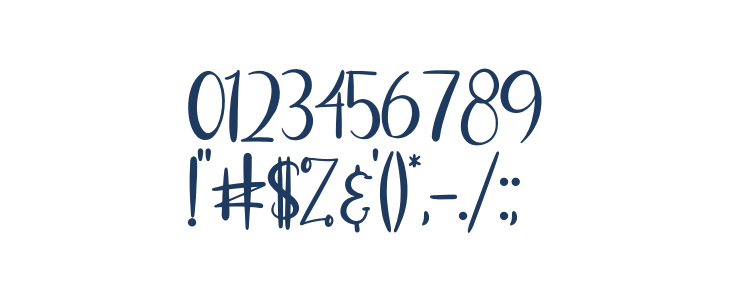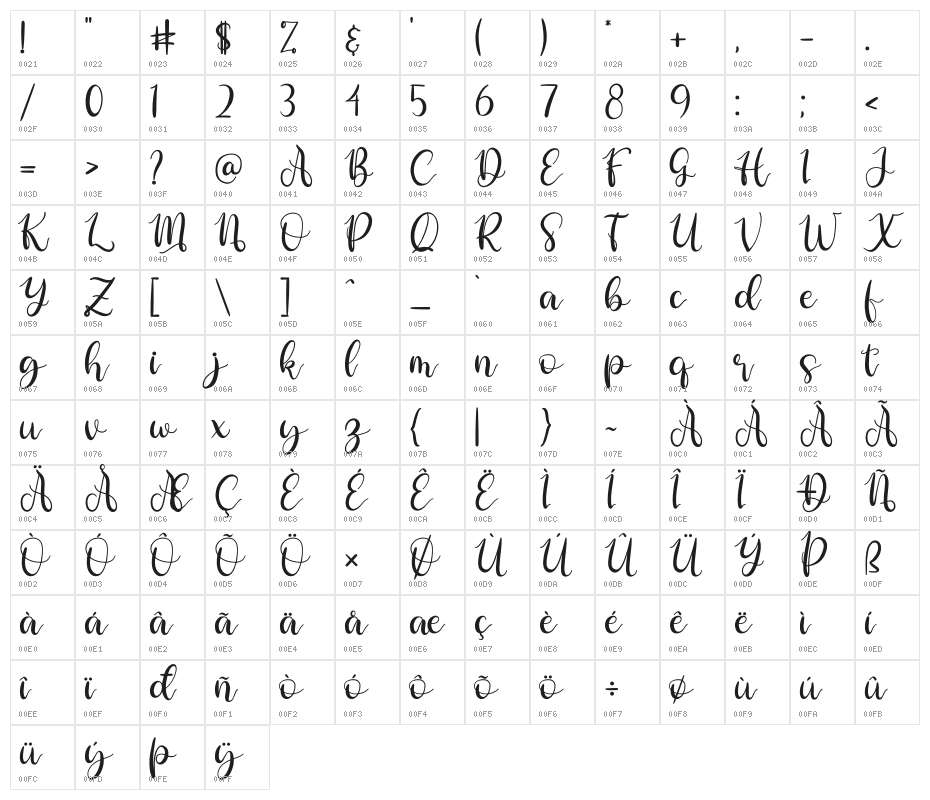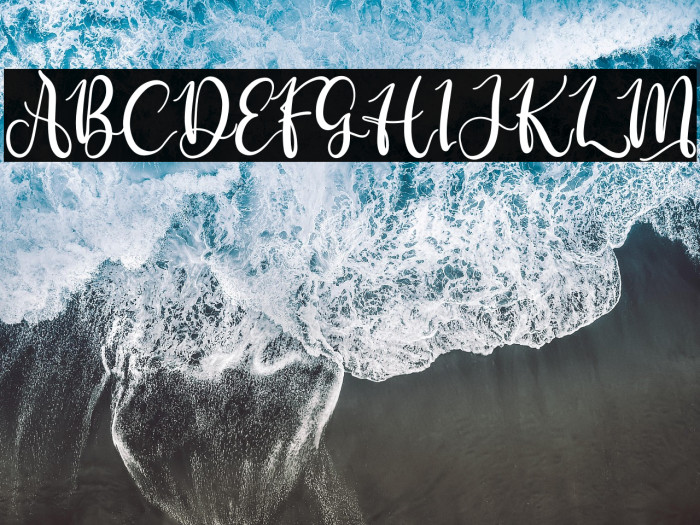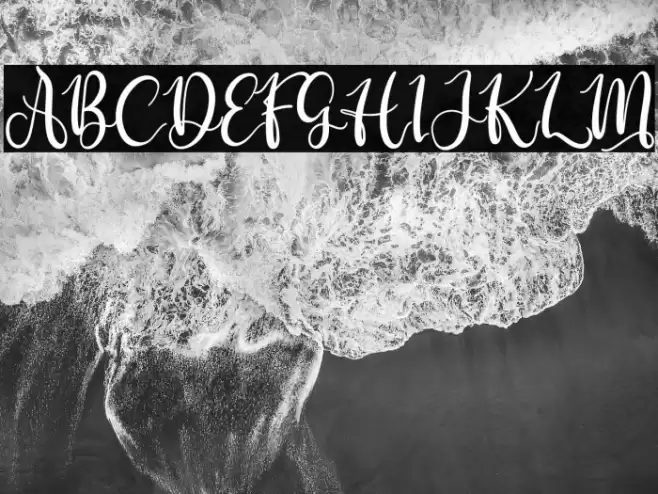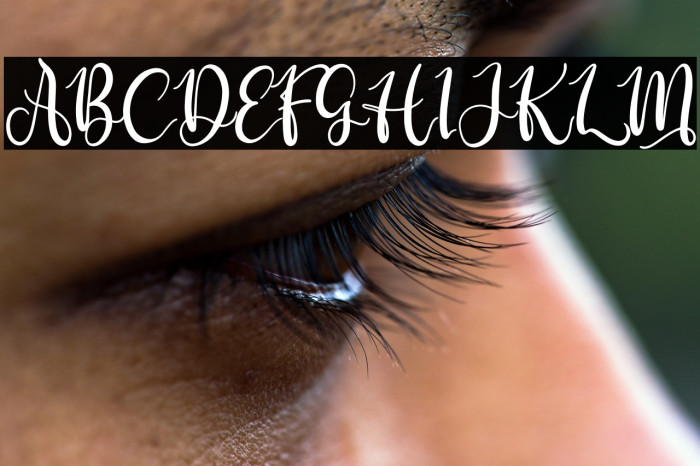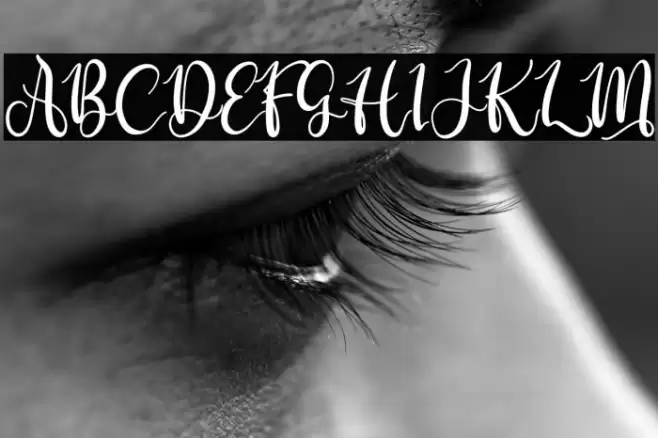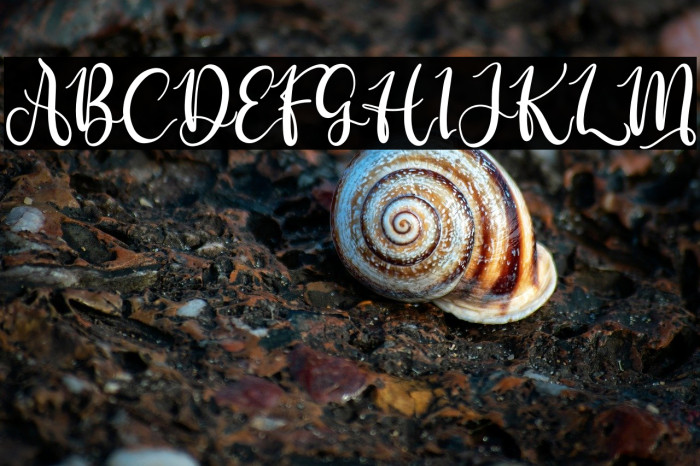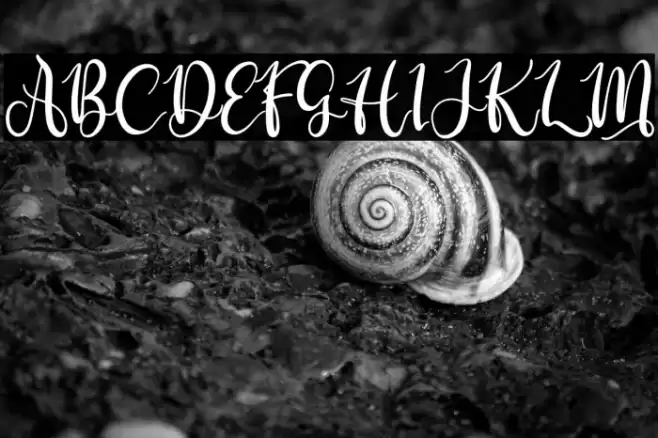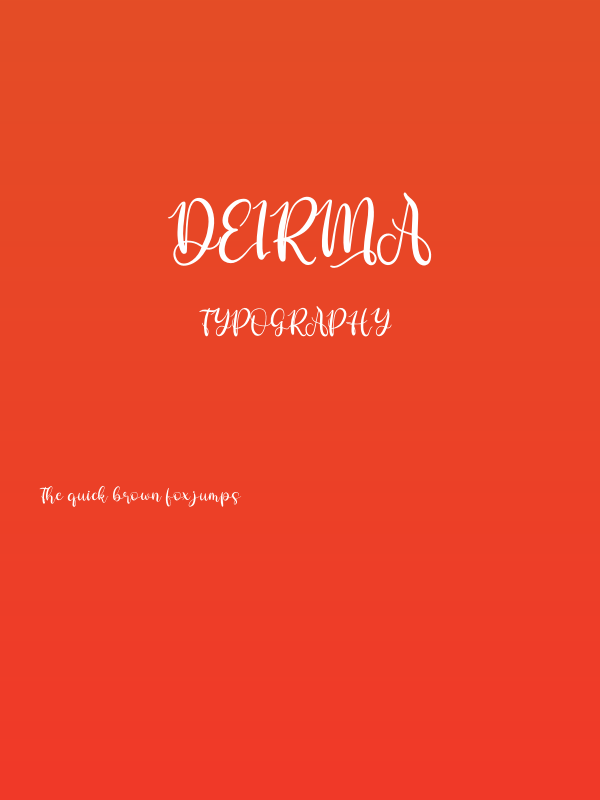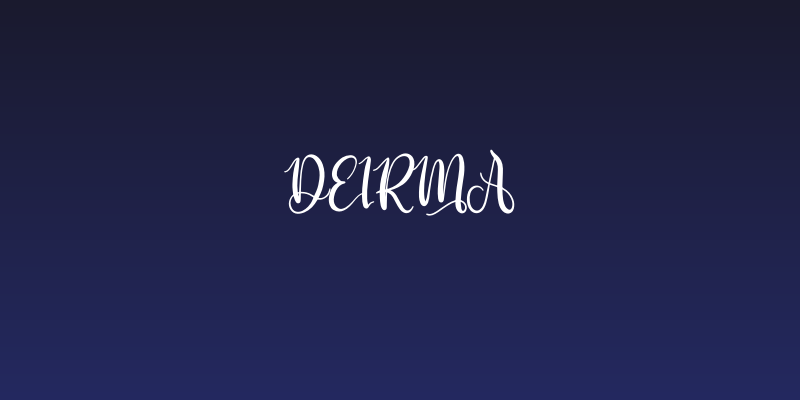
Deirma Font
Deirma Description
This font exudes a playful and elegant script style, characterized by its flowing, cursive letterforms. The uppercase letters are bold and expressive, with a consistent slant that adds a sense of movement. The lowercase letters maintain a harmonious balance, featuring loops and swirls that enhance its decorative appeal. Numbers are crafted with a similar flair, ensuring they blend seamlessly with the alphabet. Special characters are thoughtfully designed, maintaining the overall aesthetic. The font's strokes vary in thickness, providing a medium contrast that adds to its dynamic appearance.
Use CaseLogos, Invitations, Greeting Cards
Proposed ProjectsIdeal for wedding invitations, greeting cards, branding projects, and any design requiring a touch of elegance and personality.